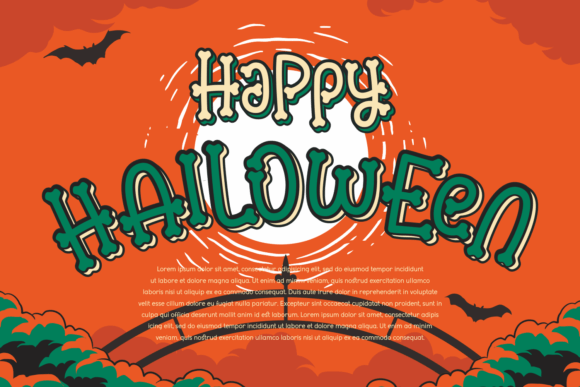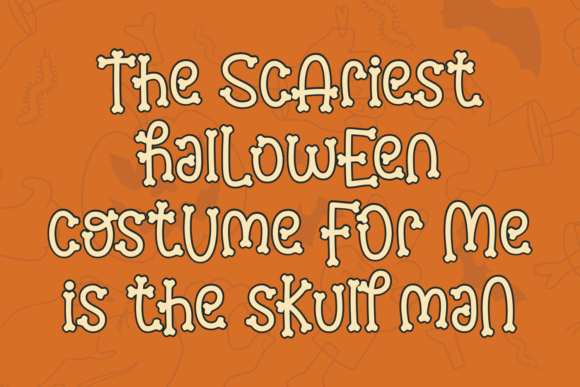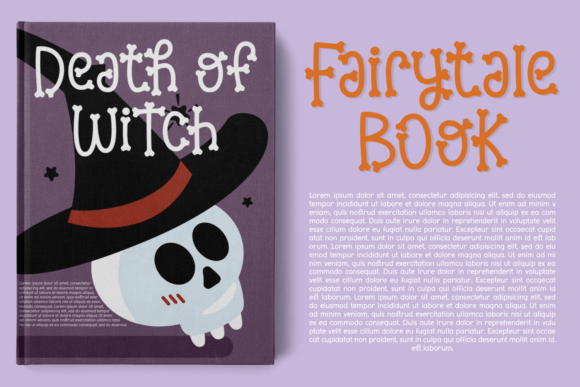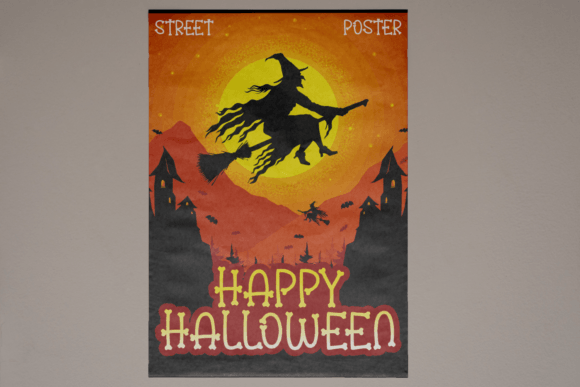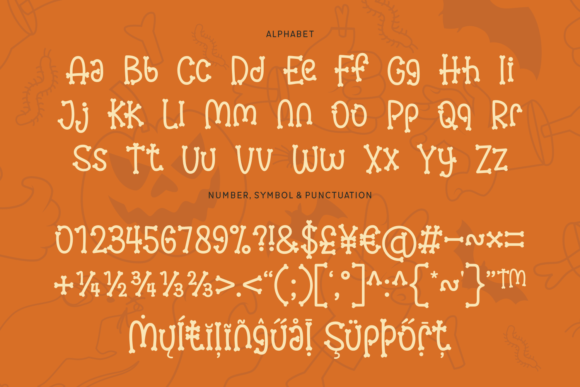
Unleash the Spooky Fun with Funny Bones Font: The Ultimate Display Font for Halloween Enthusiasts
Are you a designer, crafter, or Halloween enthusiast looking for a unique and playful font to add a spooky touch to your creative projects? Look no further than the Funny Bones Font, a fun and whimsical display font that’s sure to make your designs stand out. This quirky font is packed with skeleton bones, making it the perfect addition to your Halloween-themed crafts, designs, and projects.
What is Funny Bones Font?
Funny Bones Font is a display font designed to bring a touch of whimsy and humor to your designs. This font features a playful collection of skeleton bones, adding a lighthearted and spooky feel to any project. Whether you’re creating Halloween-themed decorations, party invitations, or social media graphics, Funny Bones Font is the perfect choice.
Key Features of Funny Bones Font
- Unique and Quirky Design: Funny Bones Font features a one-of-a-kind design that’s sure to grab attention. The skeleton bones are intricately designed, adding a touch of playfulness to your projects.
- Perfect for Halloween-themed Projects: This font is specifically designed for Halloween enthusiasts, making it the perfect choice for any spooky or kooky project.
- Scalable: This font is highly scalable, ensuring that it looks great in any size or format.
Why Choose Funny Bones Font?
With so many fonts available, why choose Funny Bones Font? Here are just a few reasons why this font stands out:
- Adds a Touch of Whimsy: Funny Bones Font adds a playful touch to any project, making it perfect for designers and crafters who want to create unique and eye-catching designs.
- Versatile: This font can be used in a variety of projects, from Halloween-themed decorations to party invitations and social media graphics.
- High-Quality Design: Funny Bones Font is designed with high-quality graphics, ensuring that it looks great in any format.
Creative Ways to Use Funny Bones Font
Now that you’ve got Funny Bones Font, what can you do with it? Here are some creative ways to use this fun and quirky font:
- Halloween Party Invitations: Create spooky and fun party invitations that set the tone for a howling good time.
- Halloween Decorations: Use Funny Bones Font to create spooky signs, banners, and decorations that add a touch of whimsy to your Halloween decor.
- Social Media Graphics: Create eye-catching social media graphics that showcase your personality and style.
- Craft Projects: Add Funny Bones Font to your craft projects, such as scrapbooking, card making, and DIY decorations.
- Experiment with Different Sizes: Play around with different font sizes to find the perfect fit for your project.
- Mix and Match with Other Fonts: Combine Funny Bones Font with other fonts to create a unique and eye-catching design.
- Use it Sparingly: Use Funny Bones Font sparingly to add a touch of whimsy to your design without overwhelming the viewer.
| Font Name | Funny Bones Font |
| Author | Dani (7NTypes) |